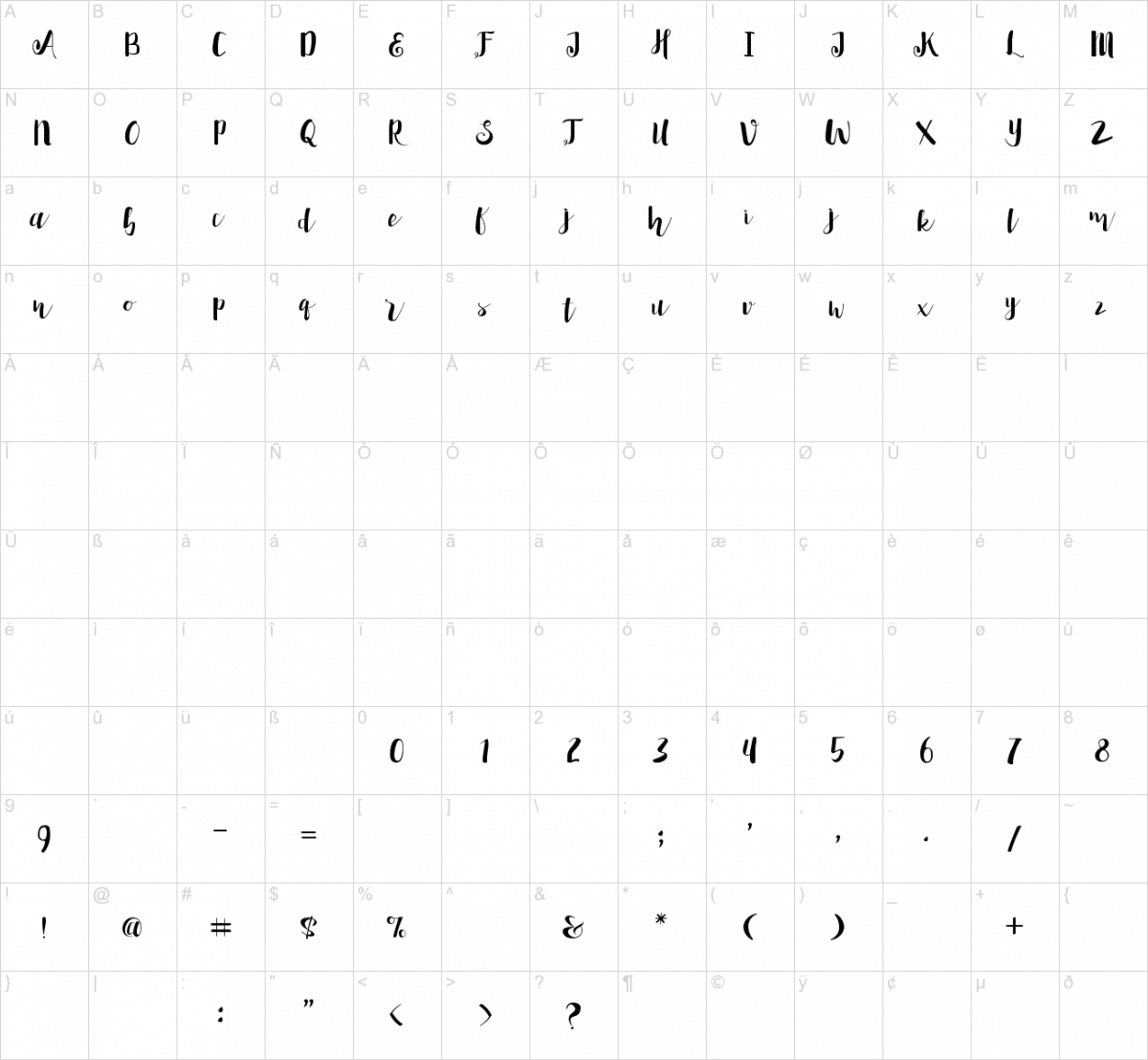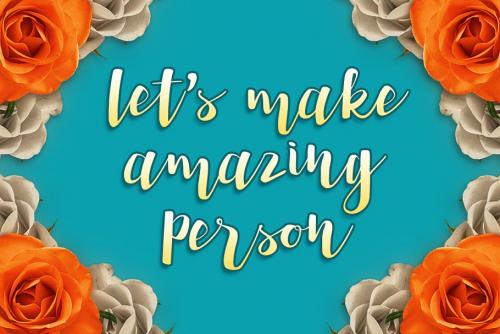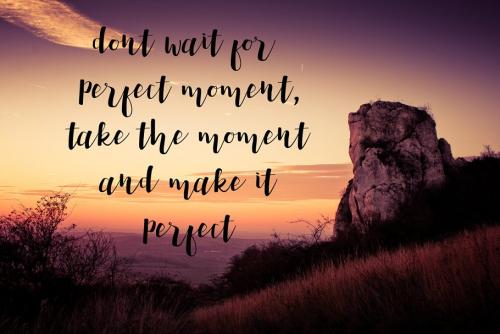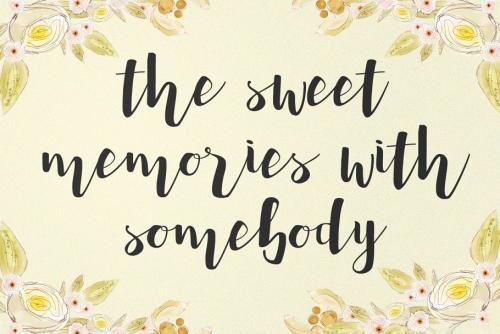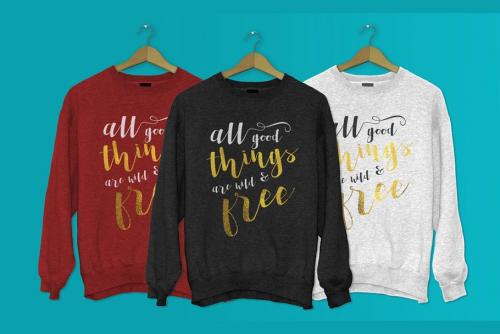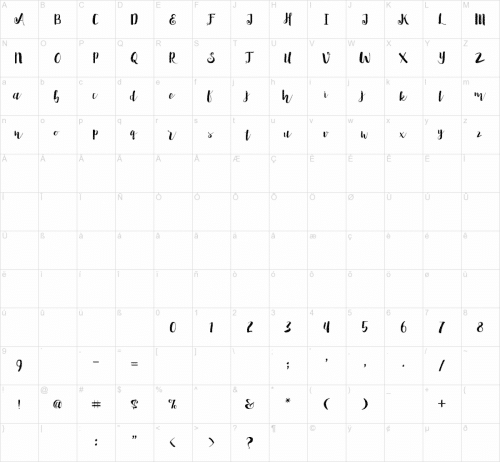
Introducing Penelope Brush Script, a modern hand drawn script font. a charming typeface that is attractive and suitable for a variety of purposes such as design, logo, branding, labels, wedding invitations, posters, badges, and other interesting things.
This font can be used in various applications such as Microsoft Word, corel draw, adobe illustrator, adobe photoshop. in addition to having standard letters, numbers and some standard symbols, fonts penelope also has a swash letters from a – z that would make it a more attractive font.